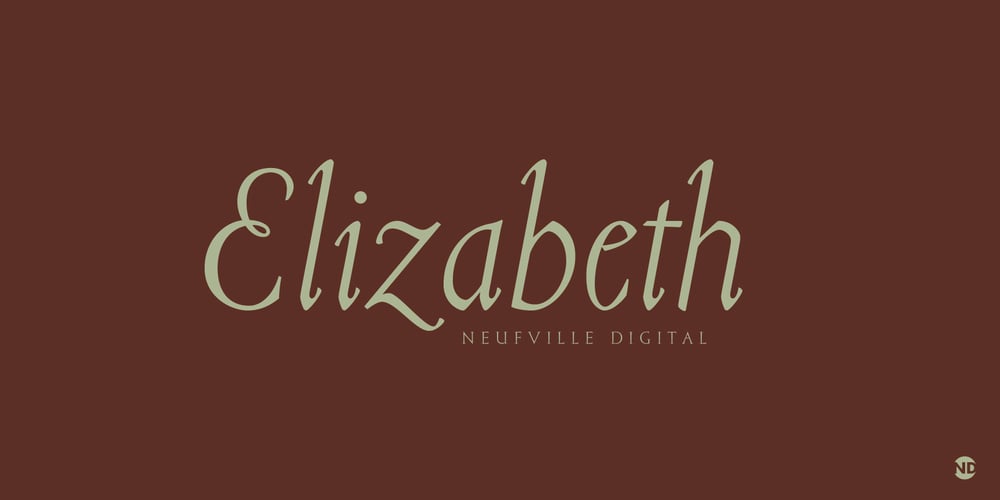
Elizabeth ND
Elizabeth ND font
Elizabeth ND Font Family was designed by Andreu Balius, Elisabeth Friedländer and published by Neufville Digital. Elizabeth ND contains 3 styles and family package options. Elizabeth ND is known for being the first typeface designed by a woman: Elizabeth Friedlander. It was engraved in 1938 by the Bauersche Gießerei. It has two styles: roman and italic. Its grace, delicacy and beauty allow many compositional possibilities, making it an ideal choice for use as a display and headline typeface. Elizabeth is a Trademark of BauerTypes SL